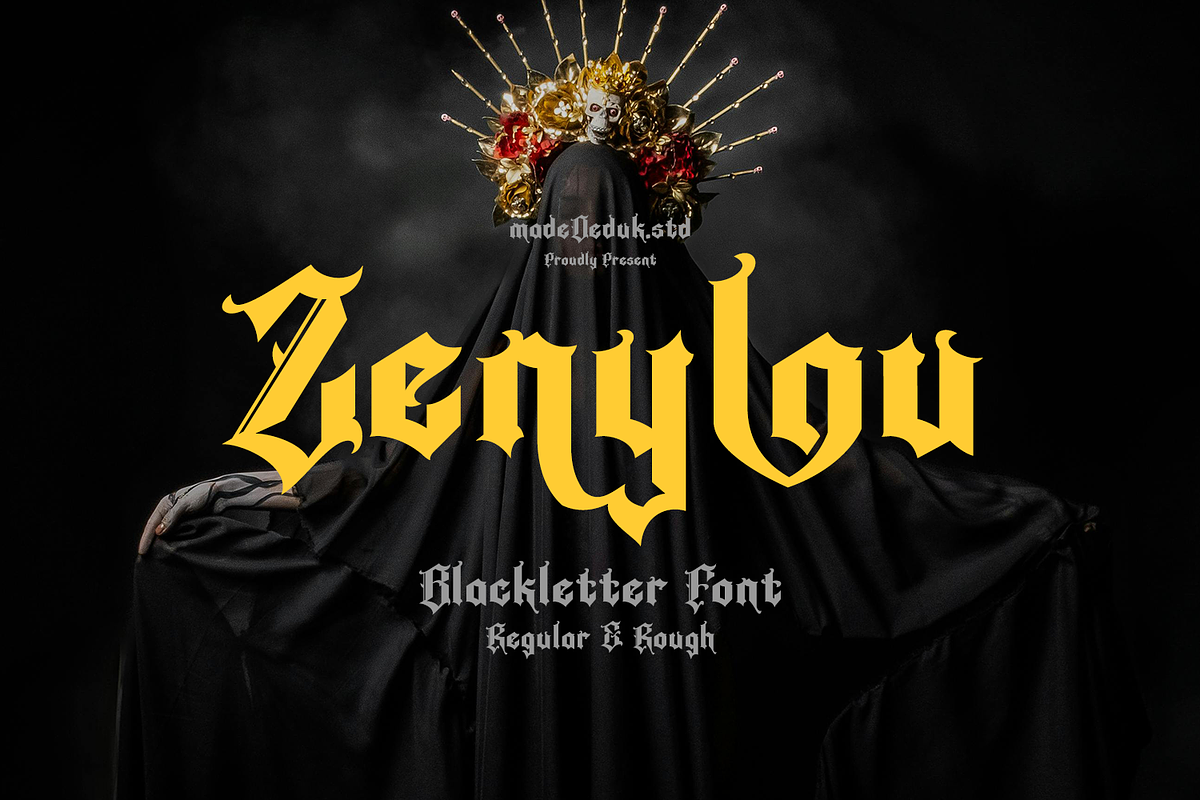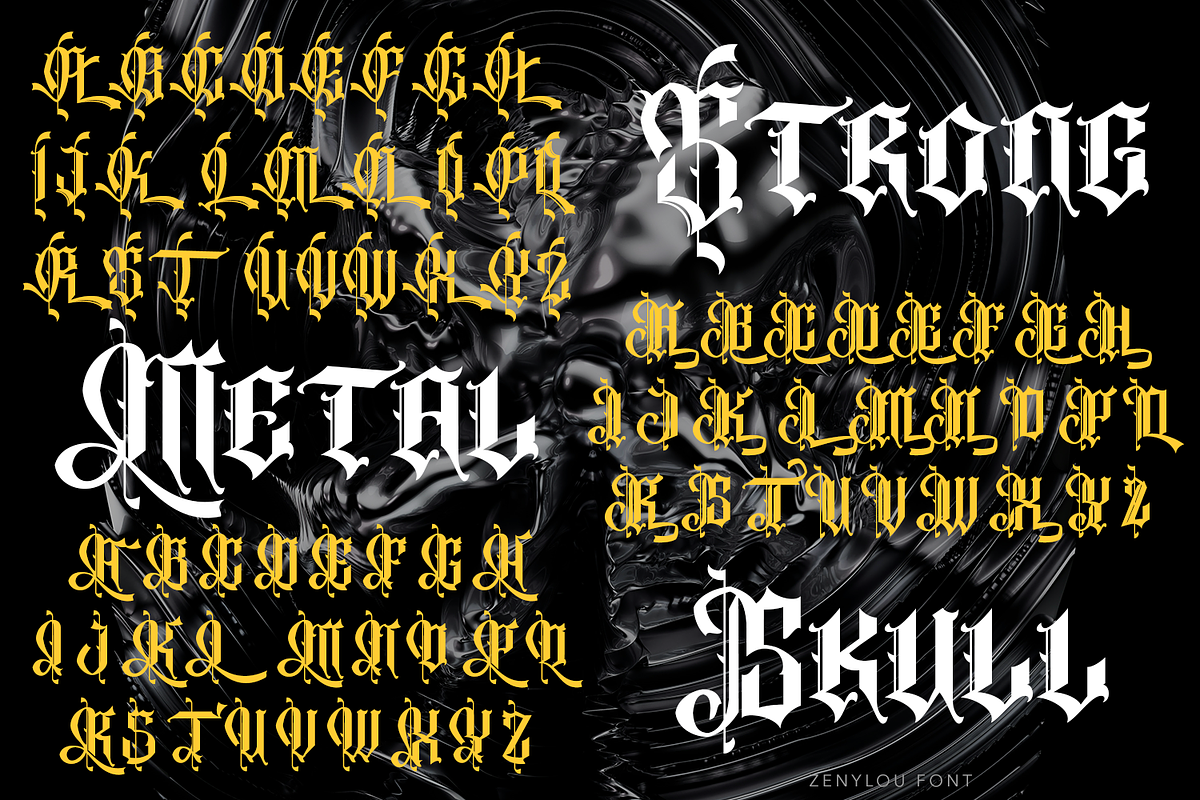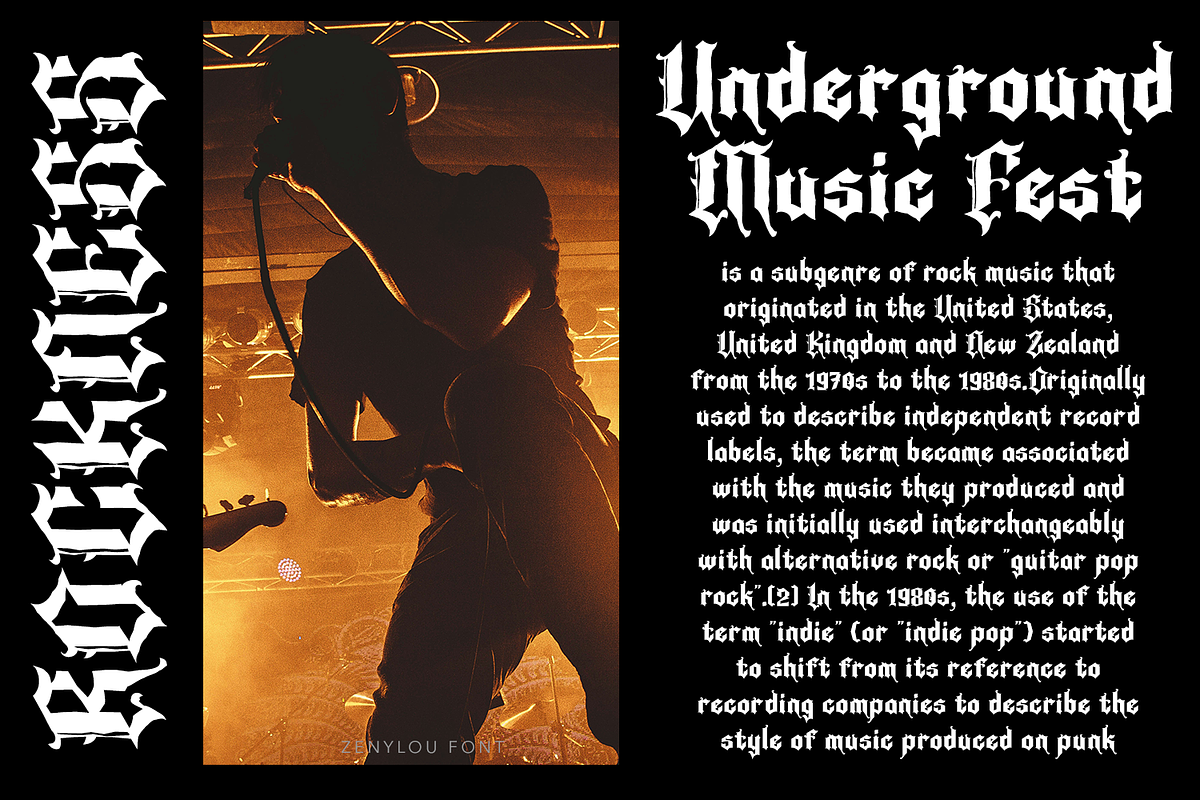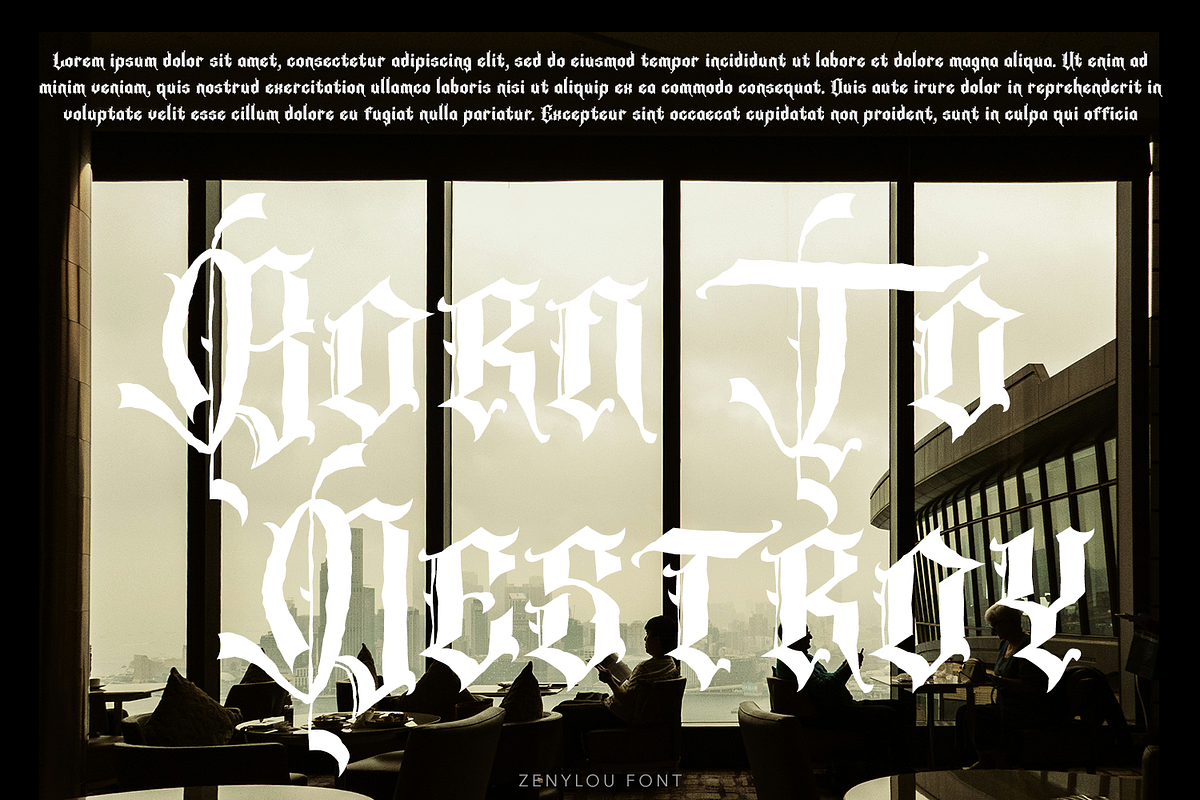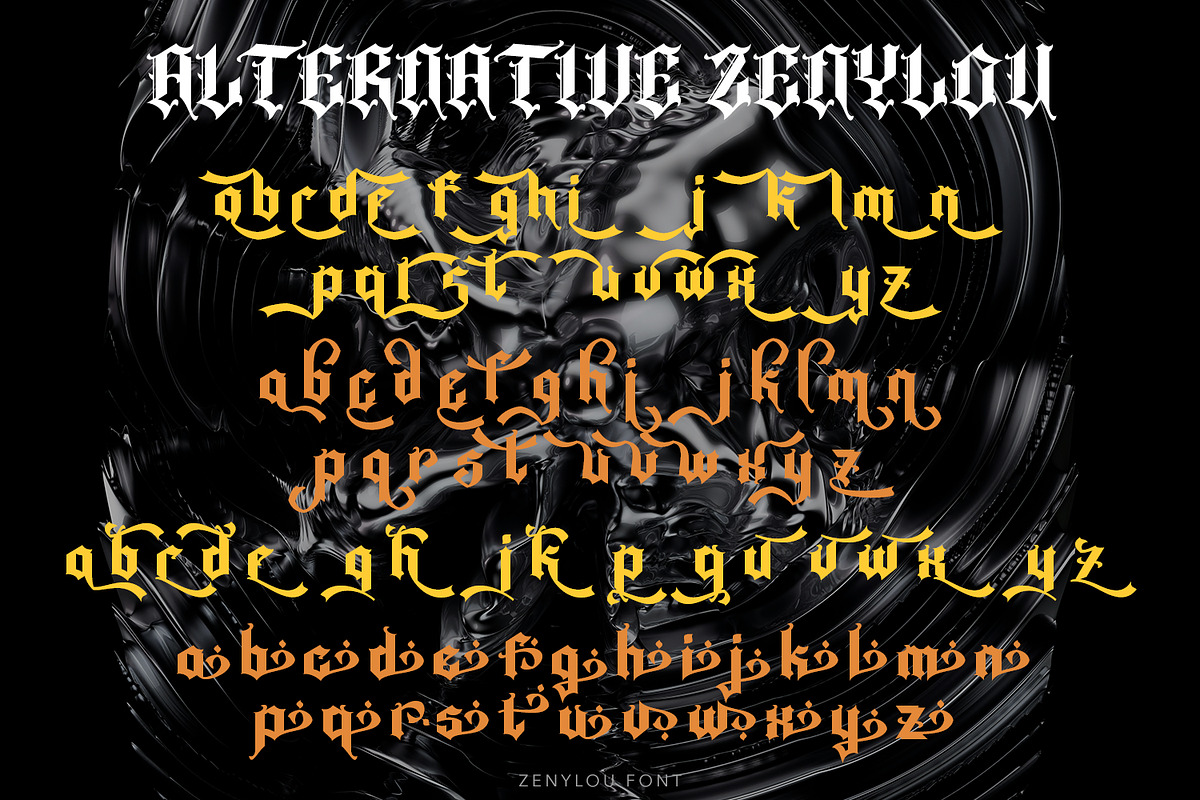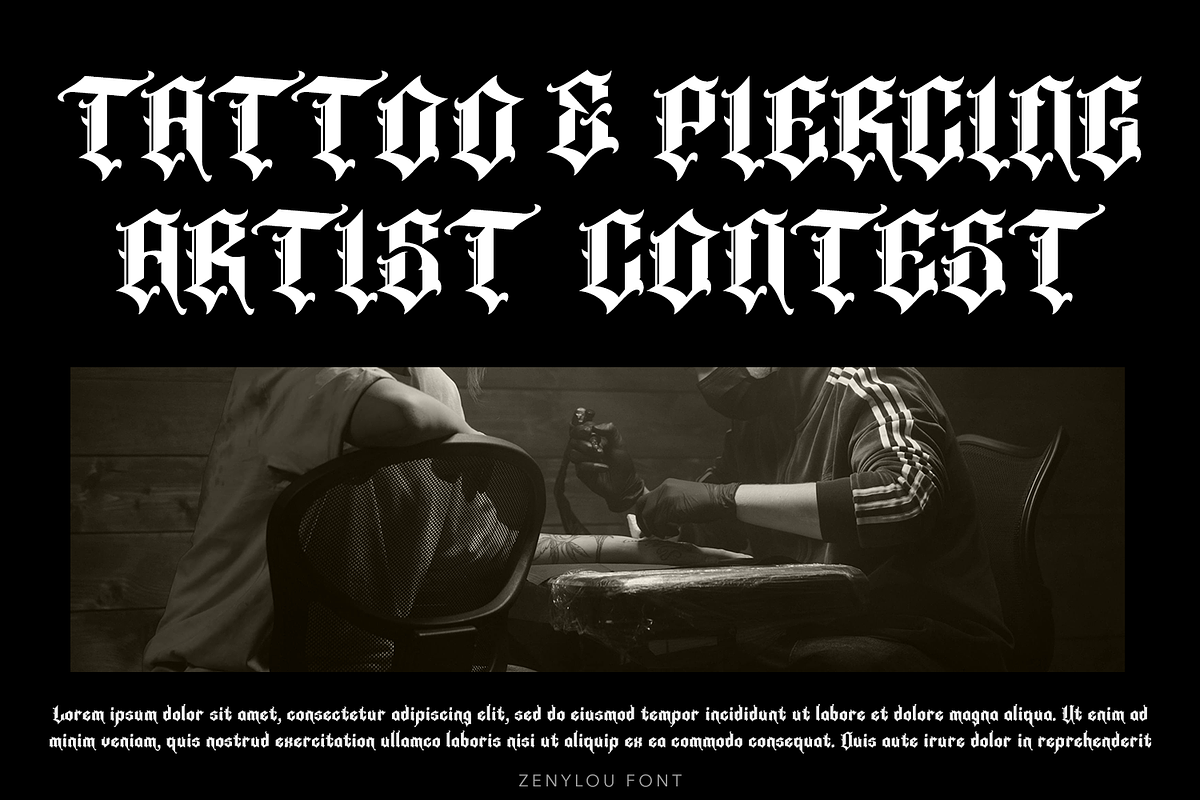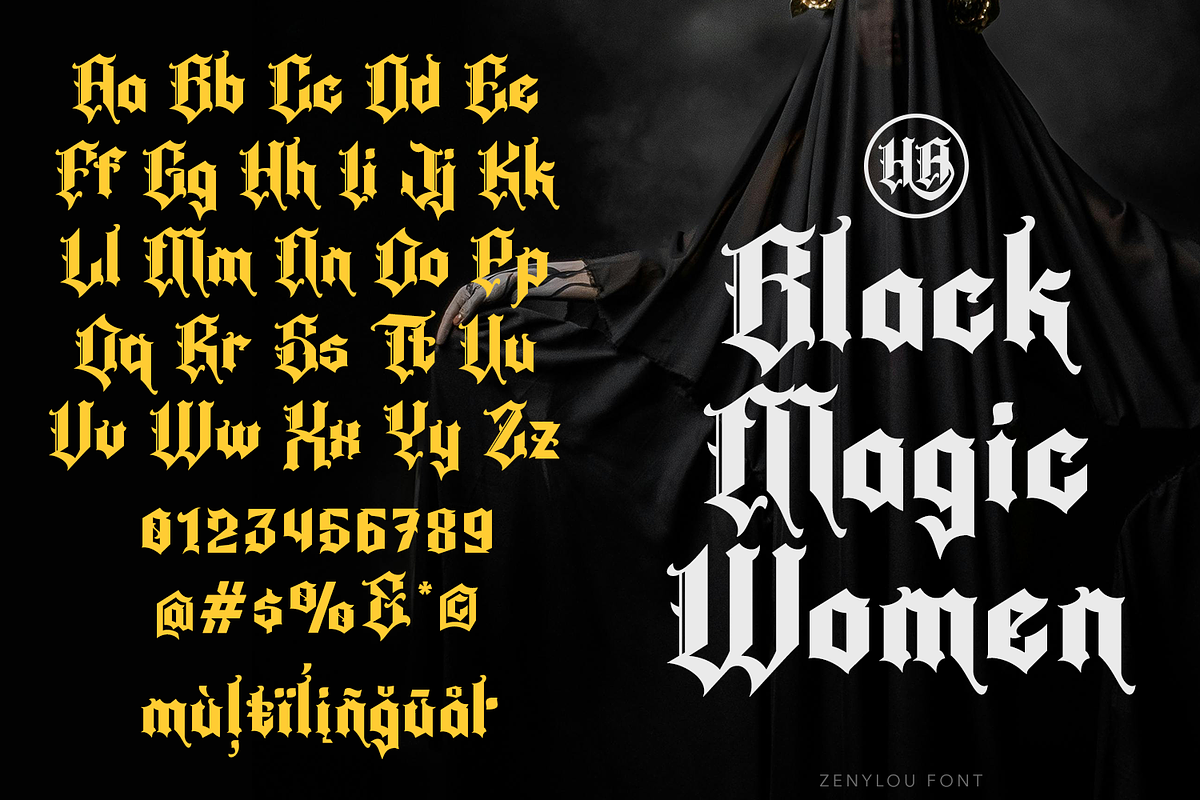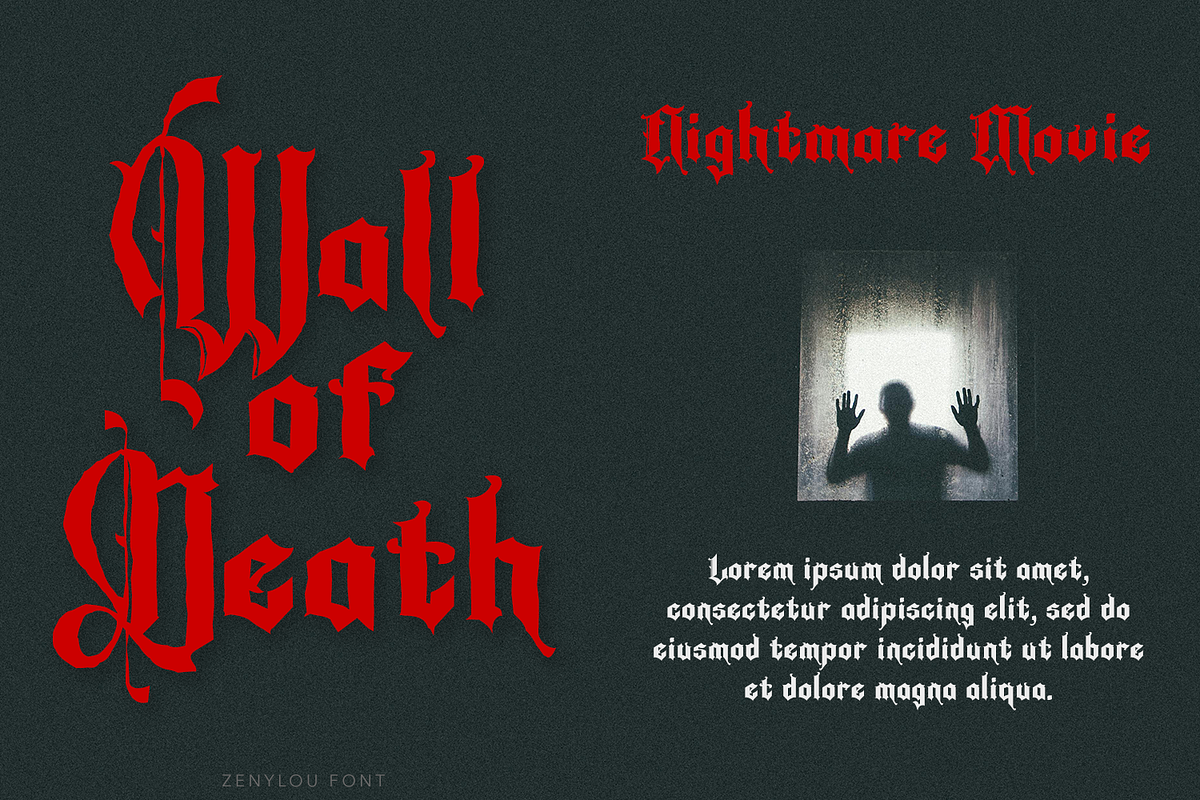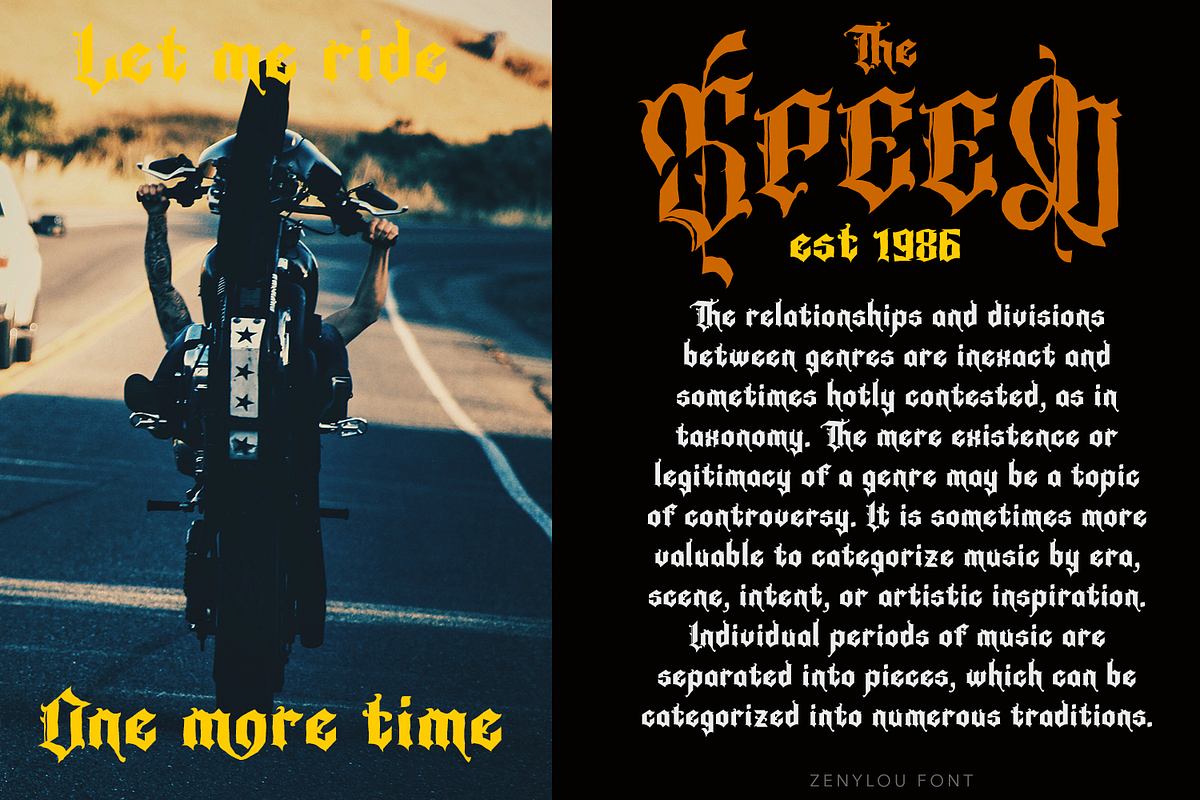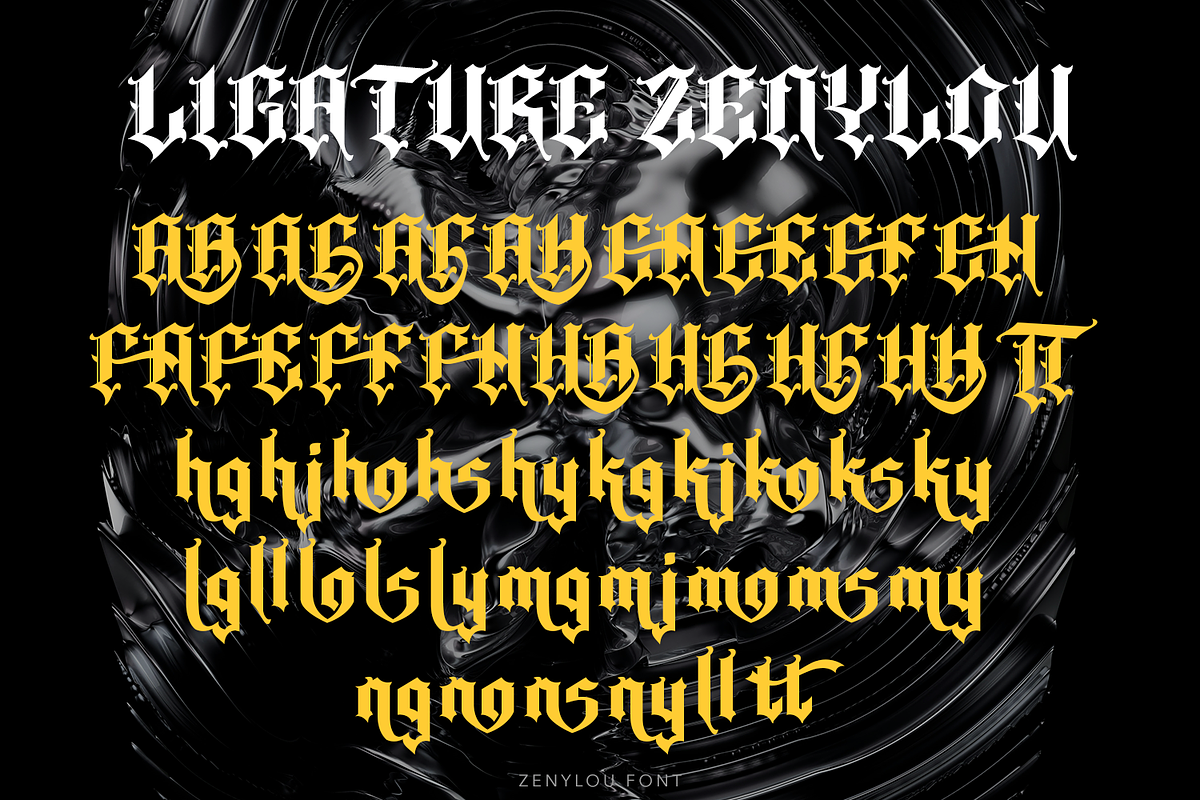
Zenylou Blackletter
Zenylou is a Blackletter font that still has the historical and modern aesthetics are both easily achieved with this personality rich font. As usual this font will be very suitable for brands that need a classic and gothic style, perfect for Branding, Logos, Greeting Cards, Stationery Design, Invitations, T-shirts, Apparel, Packaging designs, Posters, Typographic Design, and so much more.
- International Glyphs